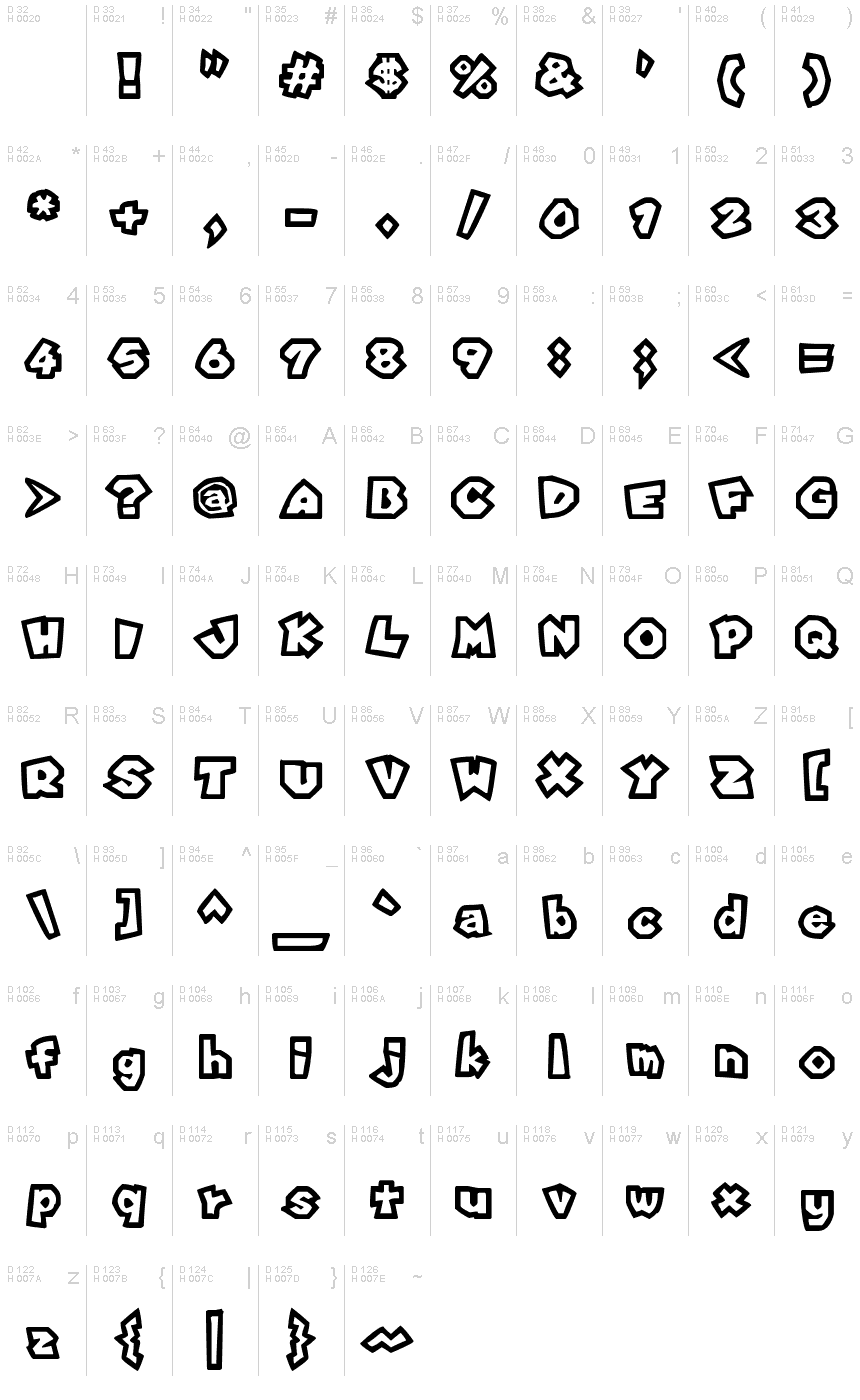
Super Mario 64
Get ready to level up your design game with the Super Mario 64 font! Designed by Alex Solis, this display typeface is perfect for adding a playful touch to your projects. The cartoonish style and bold outlines make it ideal for gaming-related designs, from Twitch stream overlays to video game posters. With its semi-expanded width, Super Mario 64 has just the right amount of space between characters to ensure readability and impact. And with an extra-bold weight, it's sure to make a statement wherever you use it. So whether you're creating graphics for a gaming convention or designing a game-themed birthday invitation, Super Mario 64 is the font you need!